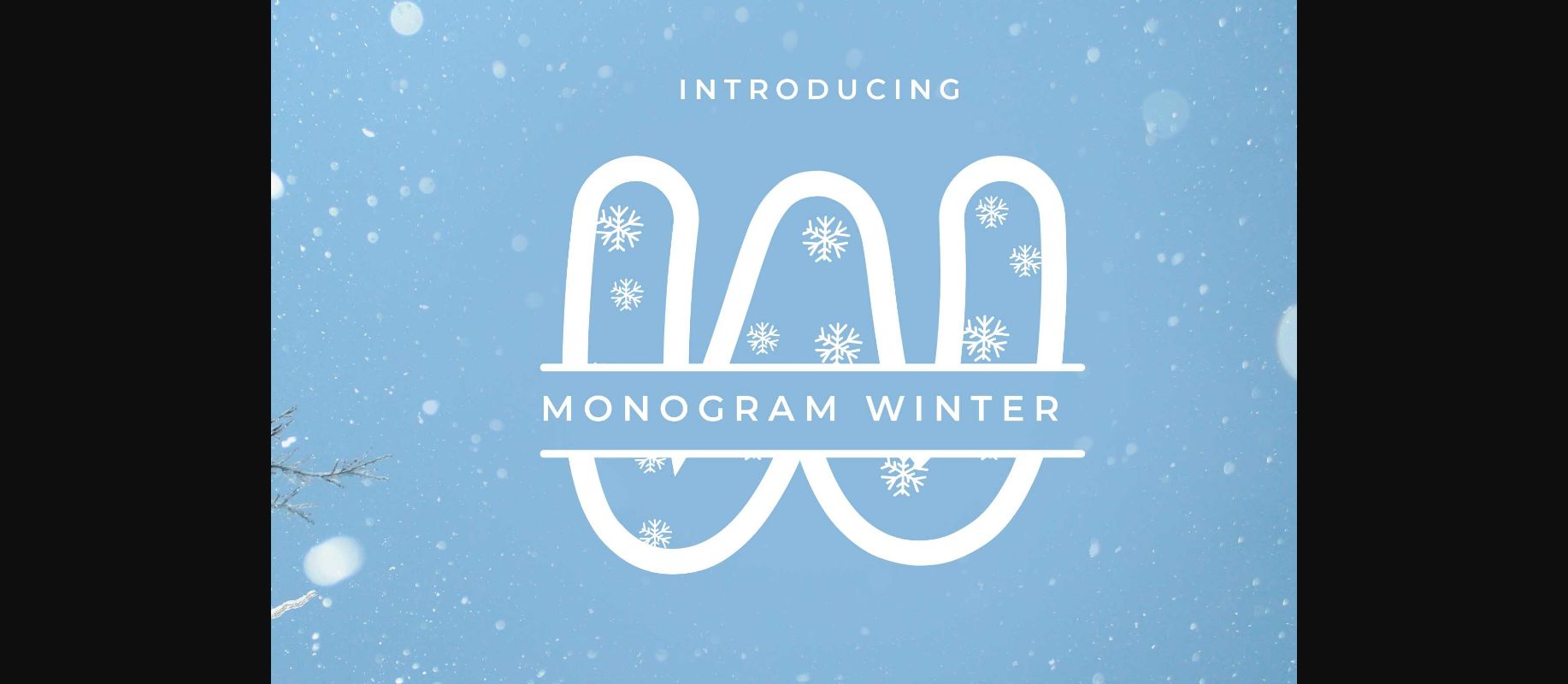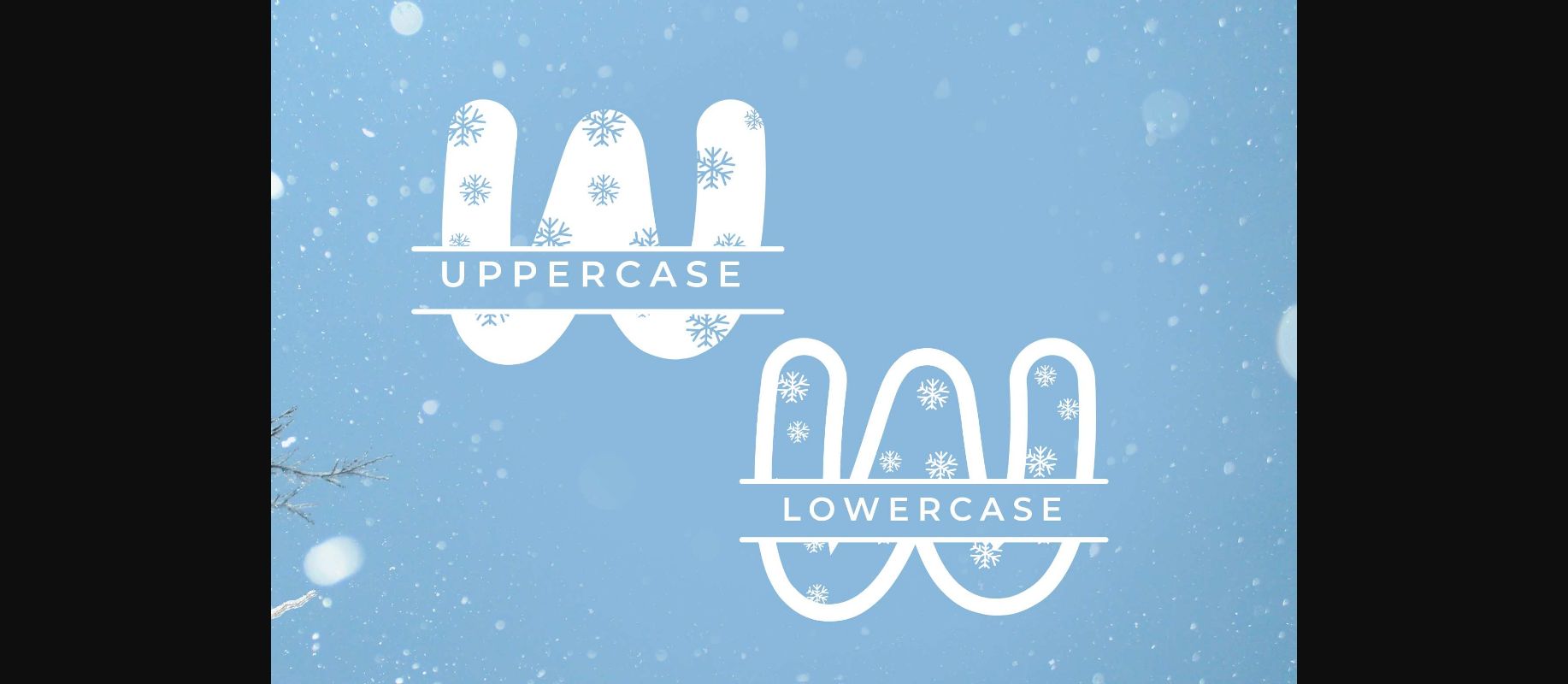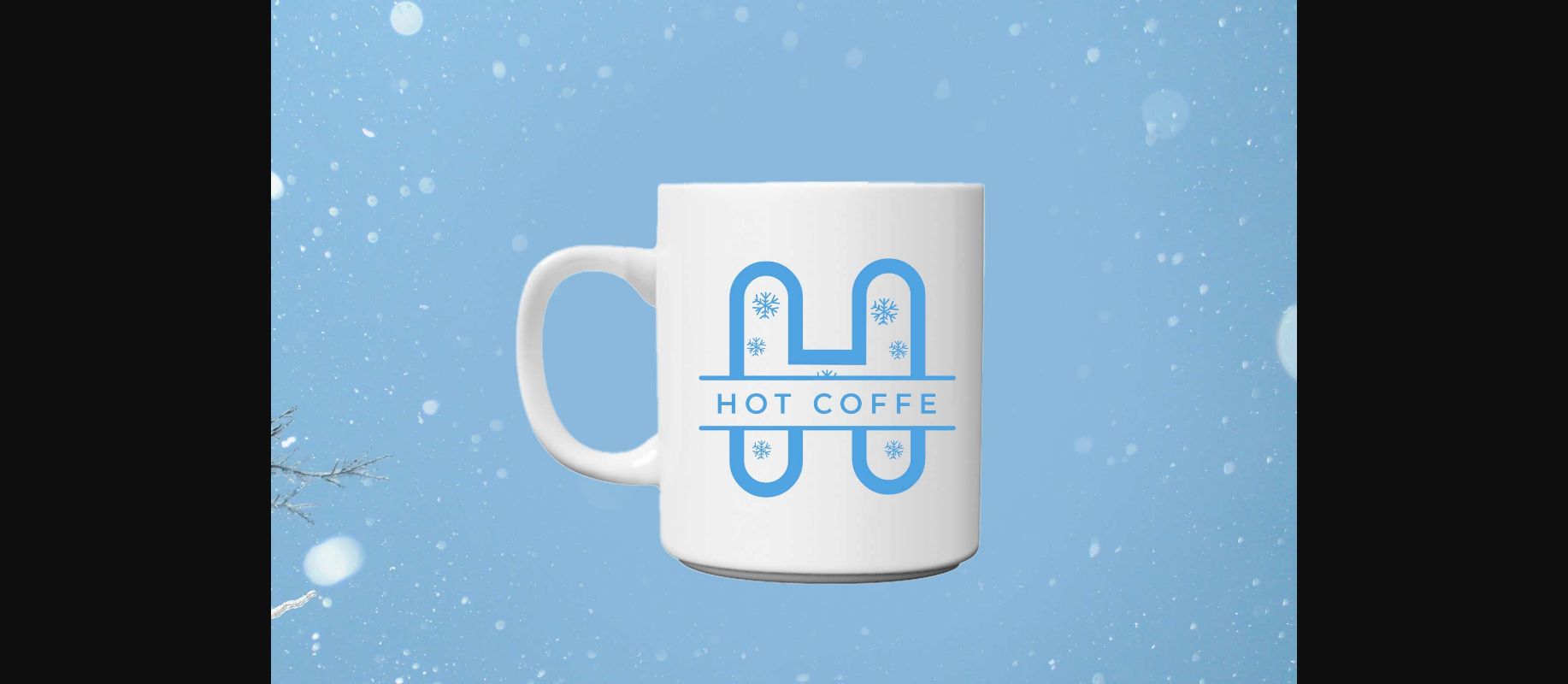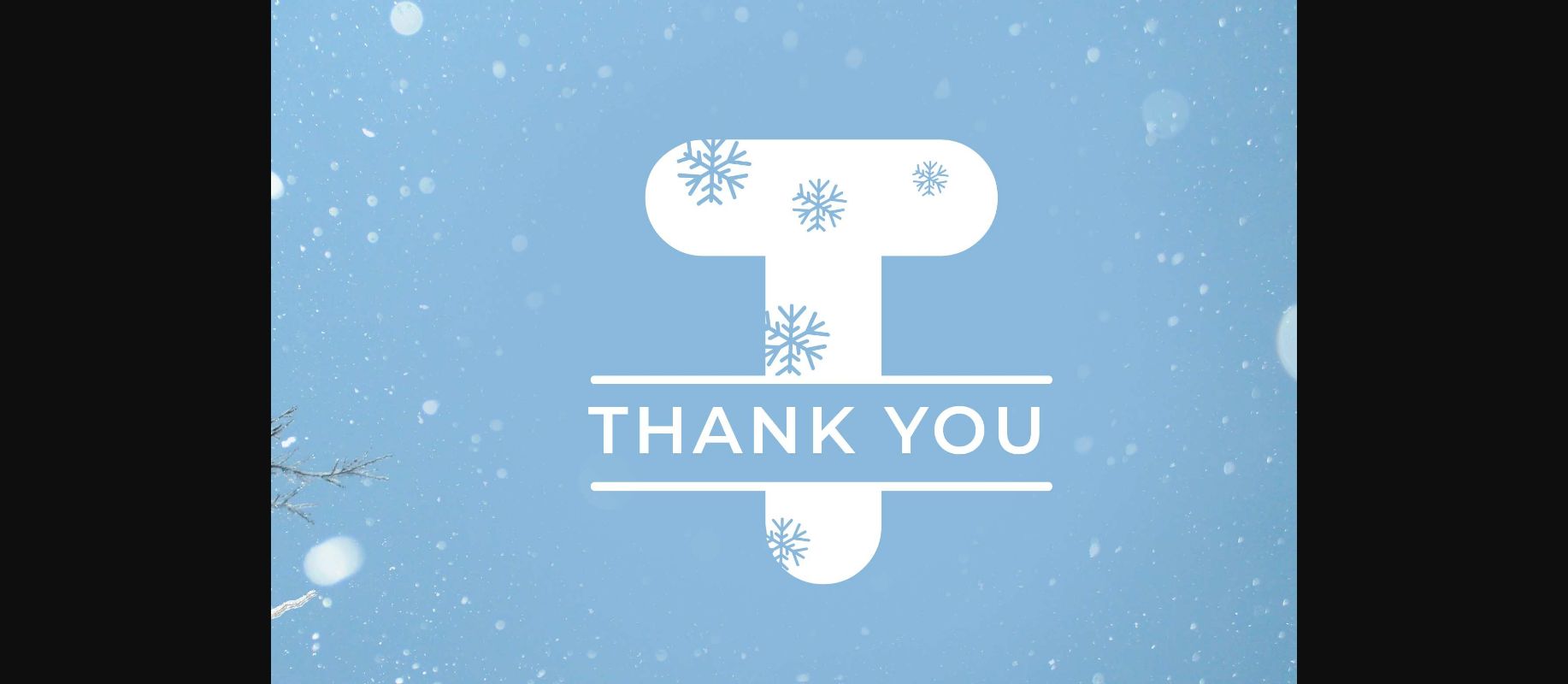
Monogram Winter Font
About Monogram Winter Font
Monogram winter is a decorative font with a cute and fun look. Add this font to pretty invitations, beautiful stationary art, catchy social media posts, cute greeting cards, or your favorite design ideas.